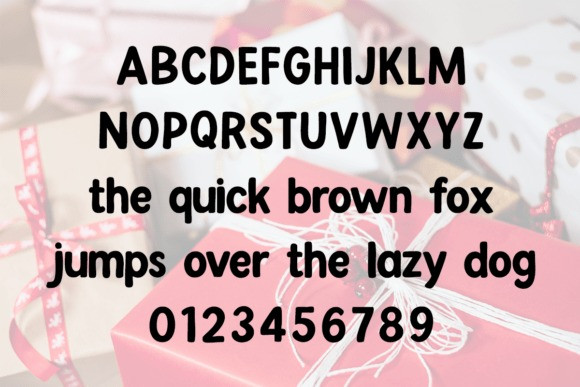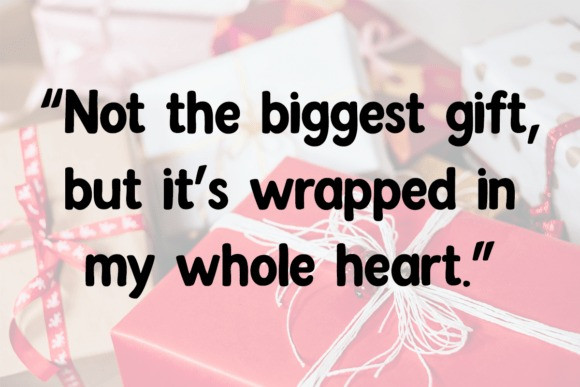
Shopping For Gifts Font
Shopping For Gifts Font is a bold, playful handwritten font with rounded shapes and cozy charm. Perfect for Christmas designs, gift tags, cards, packaging, quotes, and festive projects that need a warm, fun, and friendly feel.